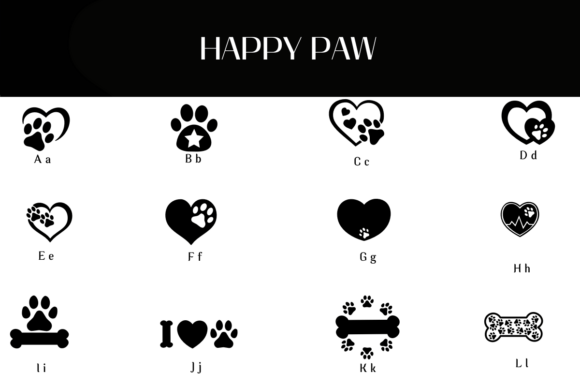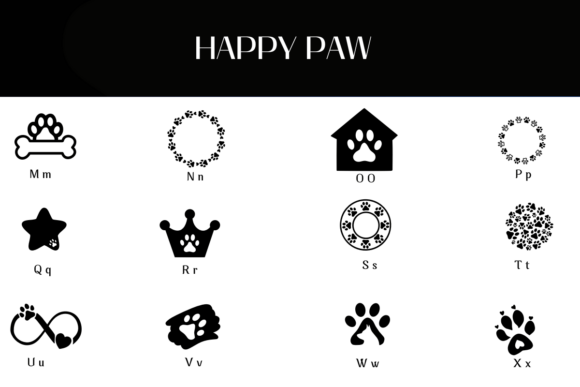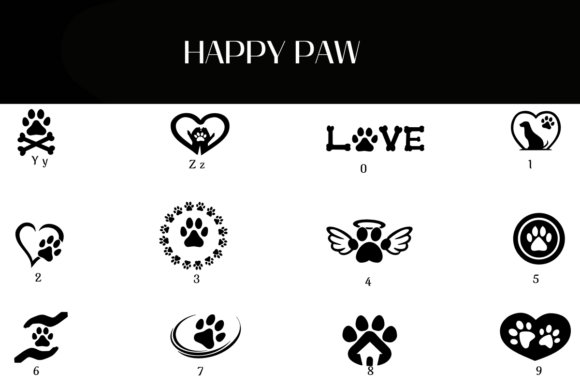
Introduction to Happy Paw Font
Happy Paw is a fun and cute dingbats font.
Add it to your creative projects and enjoy the results .
Key Features of Happy Paw Font
Why Choose Happy Paw Font?
Happy Paw Font offers exceptional quality and versatility, making it a valuable addition to your design toolkit. Whether you’re creating for personal projects or commercial use, Happy Paw Font delivers professional results.